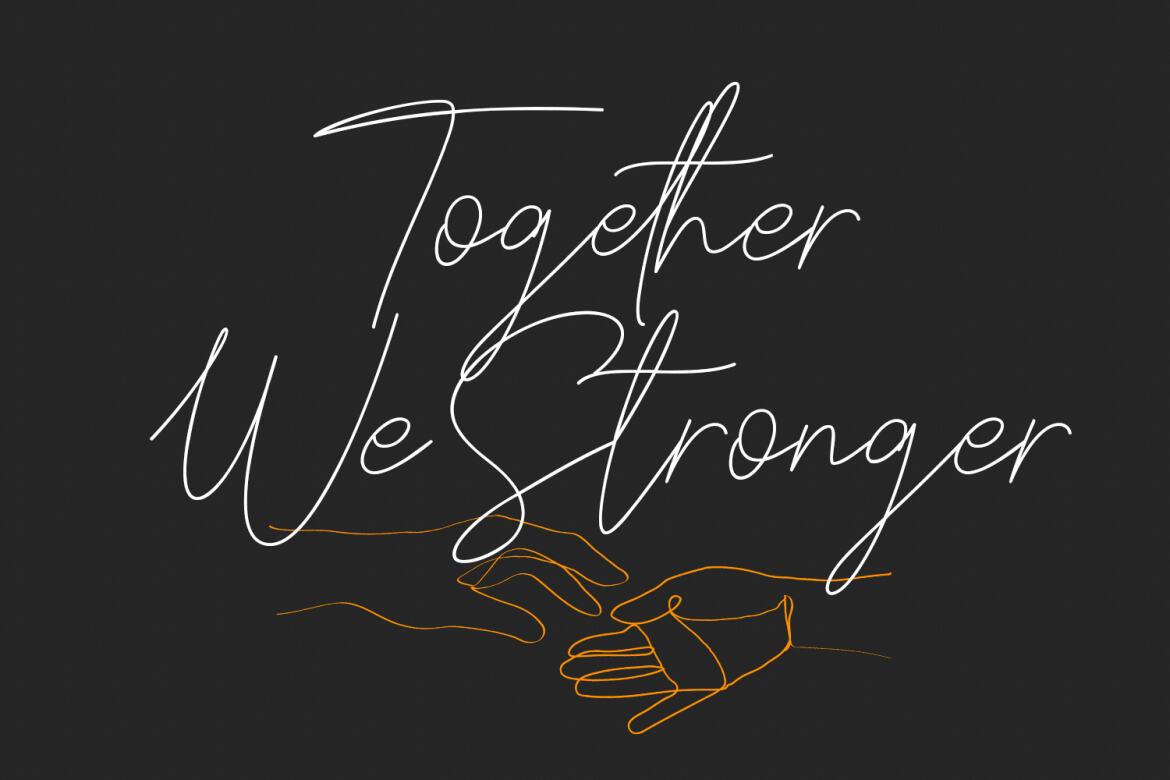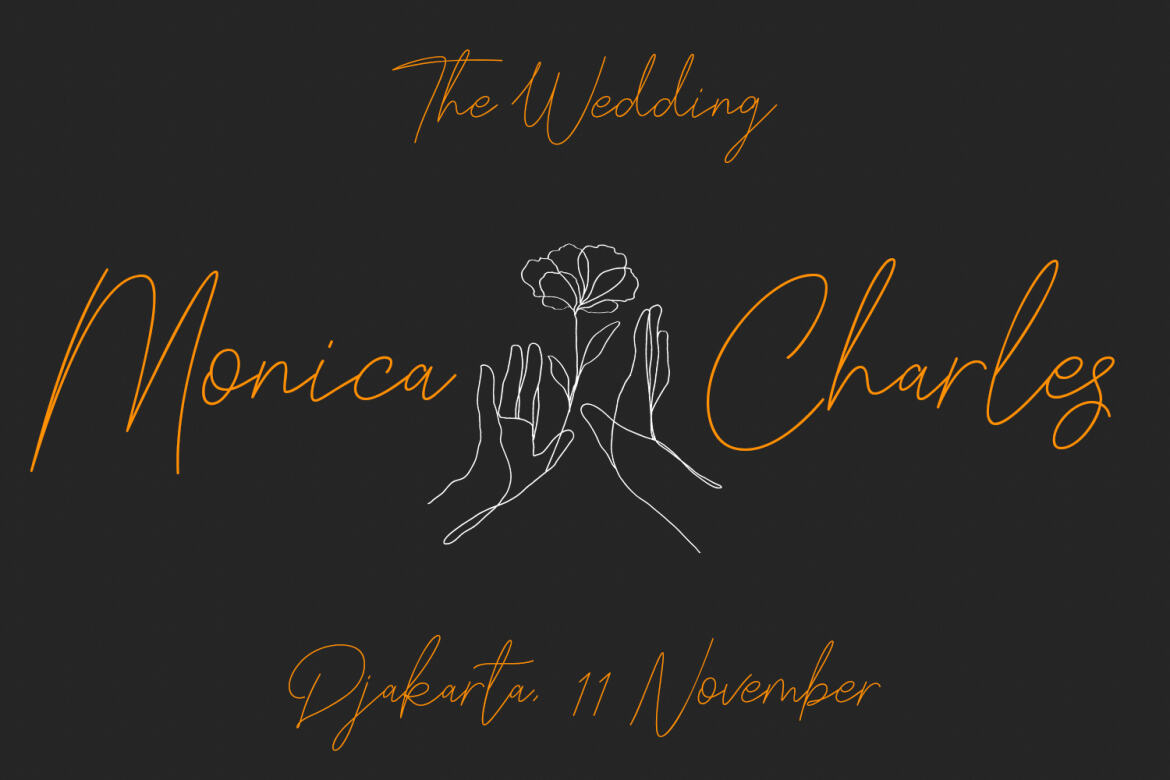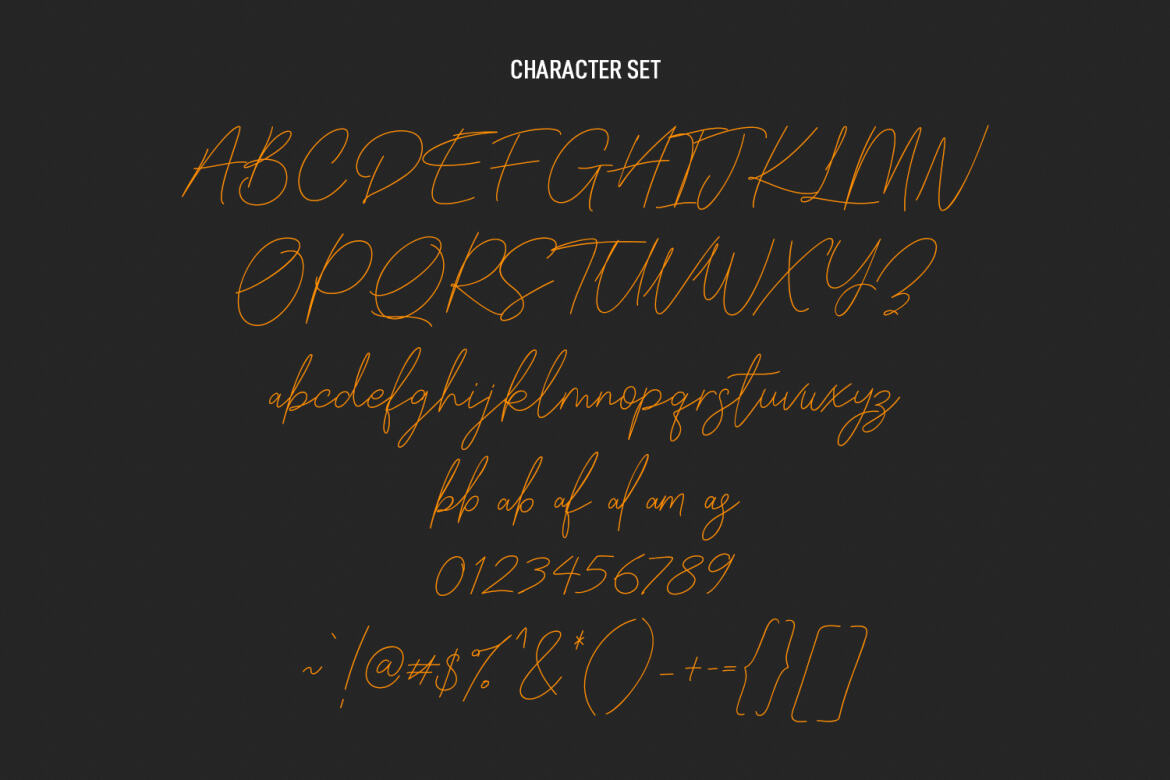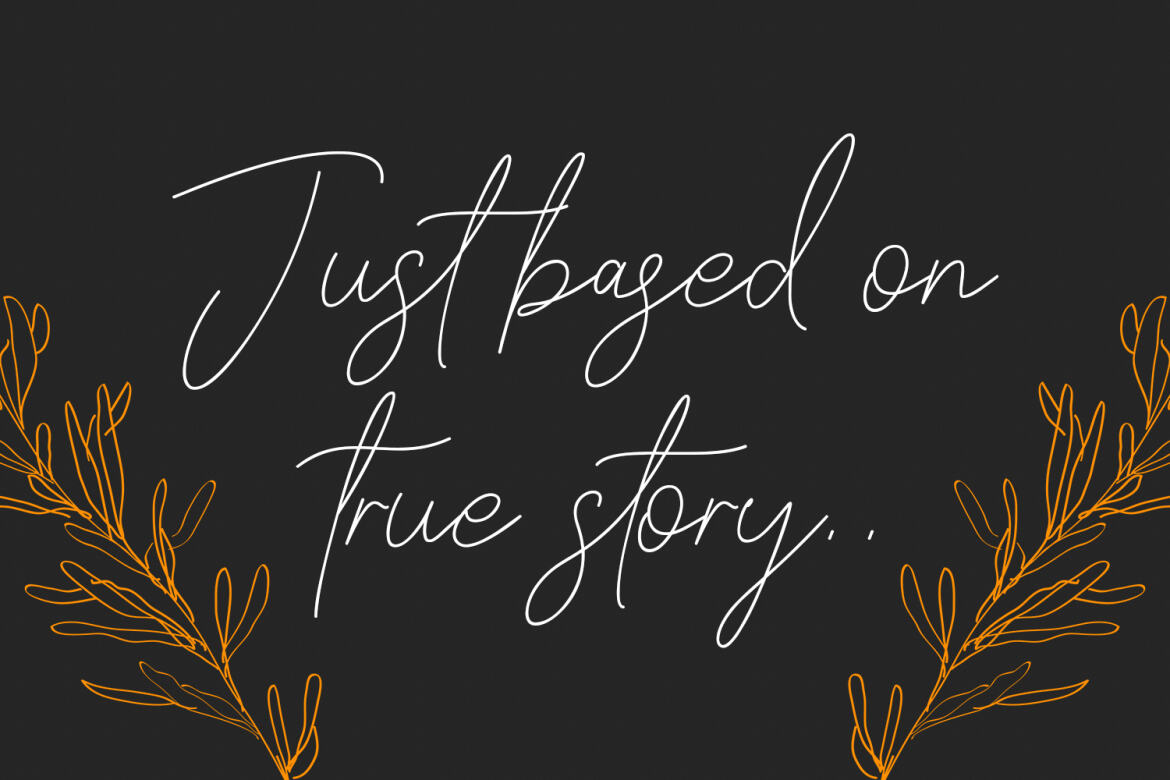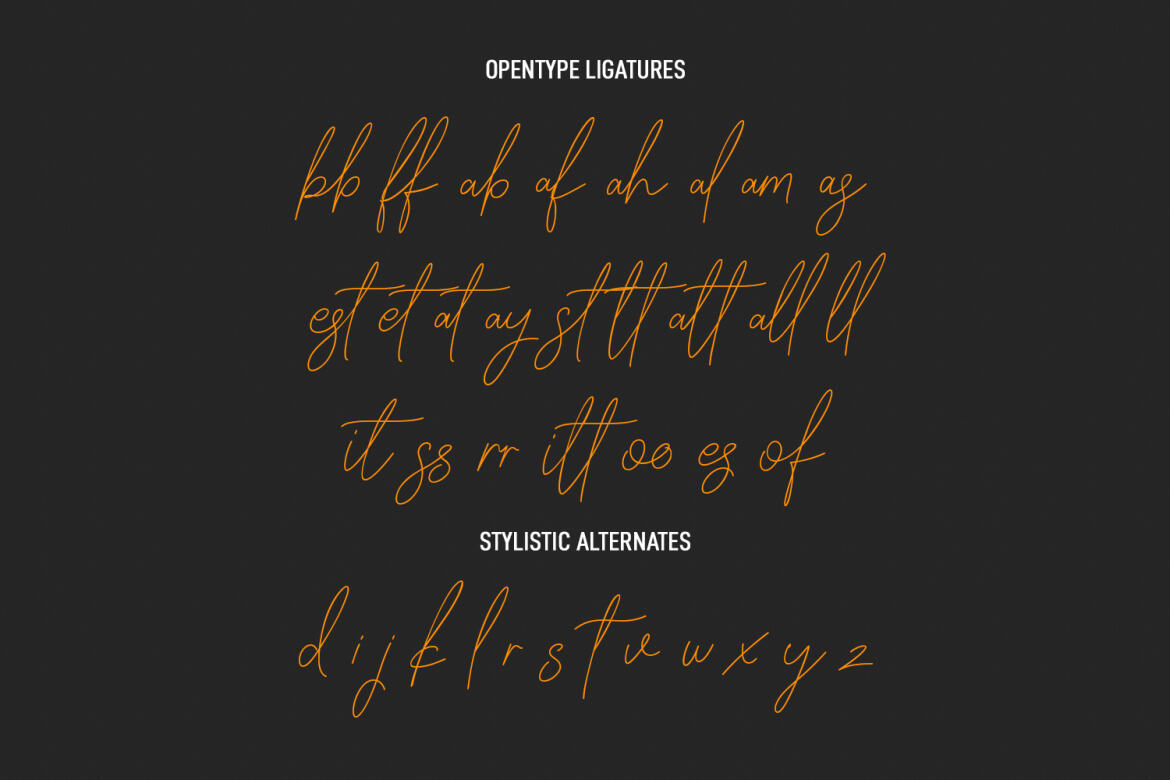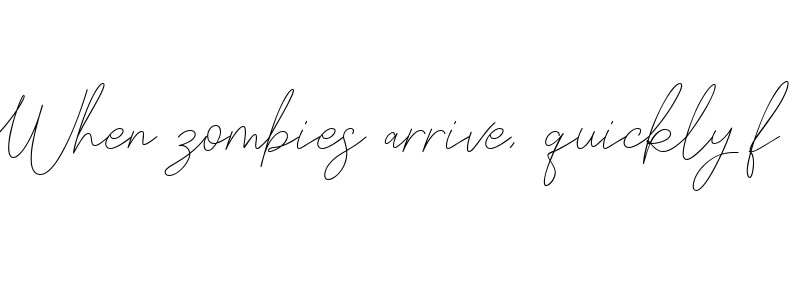
Farloxy Signature - FREE Script Font
Farloxy
Farloxy is a Casual Signature script font. With light mono-line stroke, slant, Condensed and fun character with a bit of ligatures and lowercase alternate. To give you an extra creative work. Farloxy font support multilingual more than 100+ language. This font is good for logo design, Social media, Movie Titles, Books Titles, a short text even a long text letter and good for your secondary text font with sans or serif. Make a stunning work with Farloxy font.